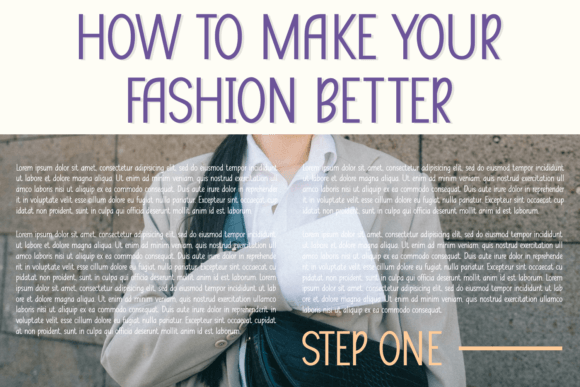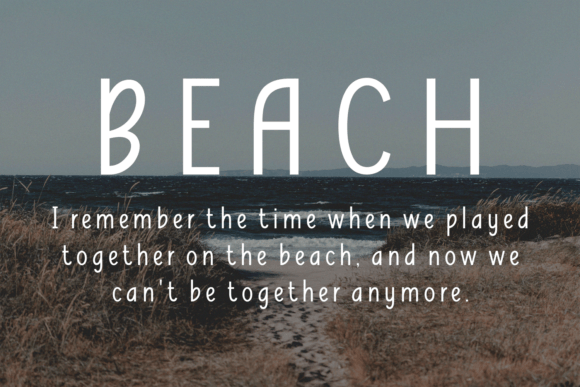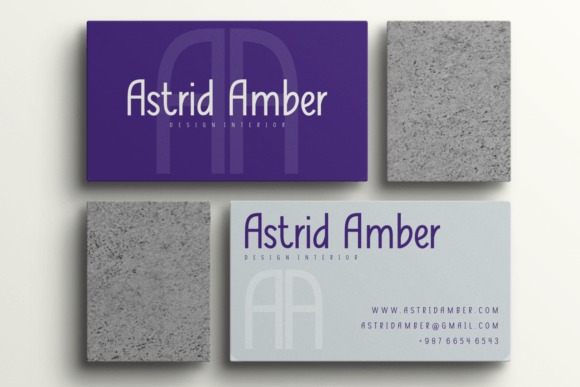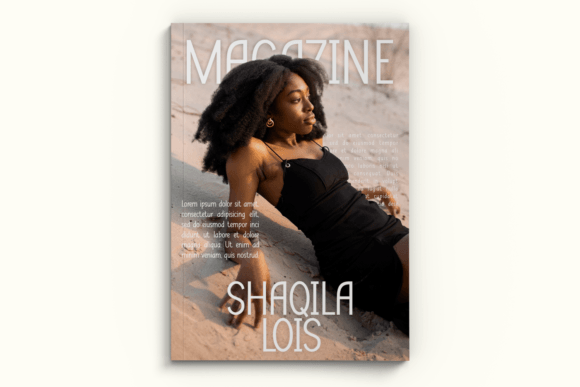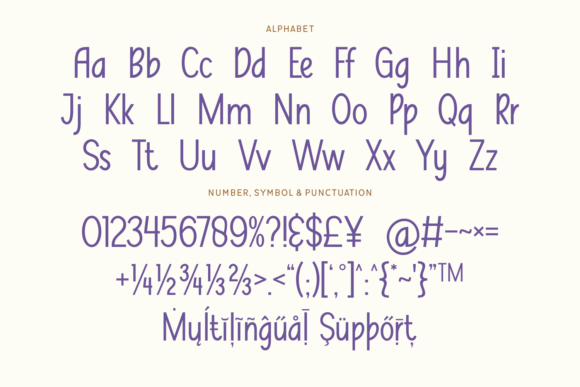
Introduction to Coloda Font
Coloda is a gorgeous display typeface that was created to elevate your next design project.
Use it for invitations, marketing brochures, storybooks, clothing designs, and other things that calls for a distinctive font .
Key Features of Coloda Font
Why Choose Coloda Font?
Coloda Font offers exceptional quality and versatility, making it a valuable addition to your design toolkit. Whether you’re creating for personal projects or commercial use, Coloda Font delivers professional results.